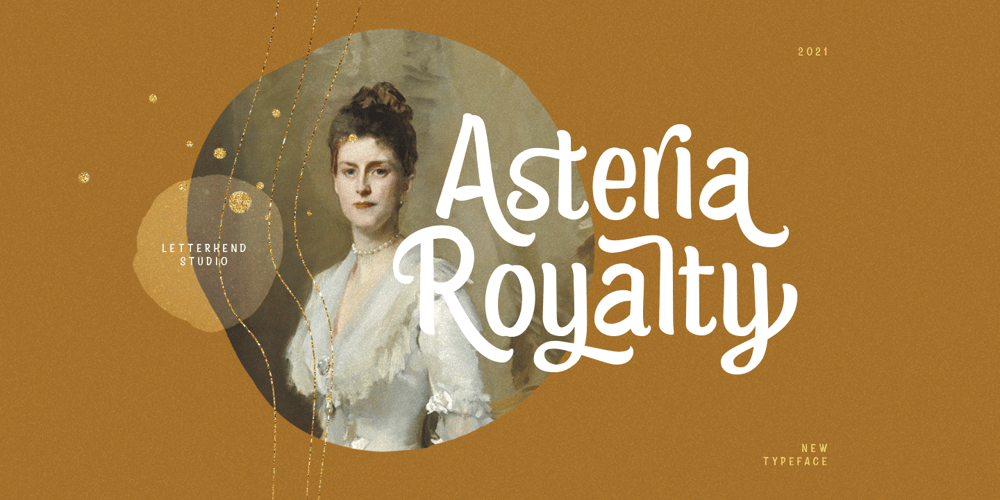
Asteria Royalty
Asteria Royalty font
Asteria Royalty Font Family was designed by Hendry Juanda and published by Letterhend. Asteria Royalty contains 1 styles and family package options. Introducing, Asteria Royalty – A font made by natural handwriting. Perfectly to be applied to the other various formal forms such as invitations, labels, logos, magazines, books, greeting / wedding cards, packaging, fashion, make up, stationery, novels, labels or any type of advertising purpose.Features : uppercase & lowercase numbers and punctuation multilingual alternates, swash & ligatures PUA encoded We highly recommend using a program that supports OpenType features and Glyphs panels like many of Adobe apps and Corel Draw, so you can see and access all Glyph variations.